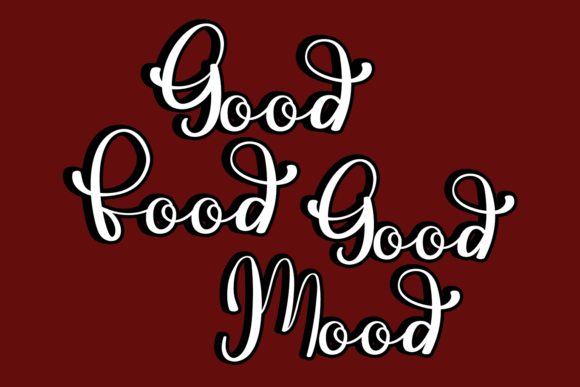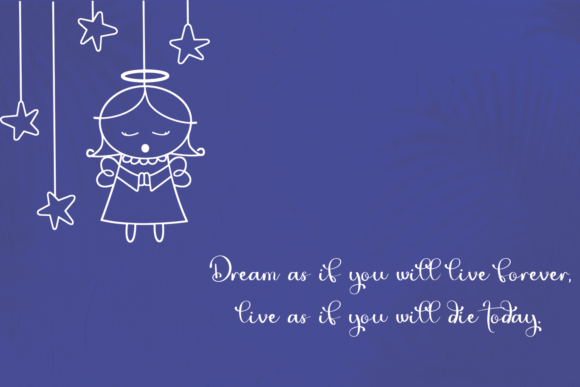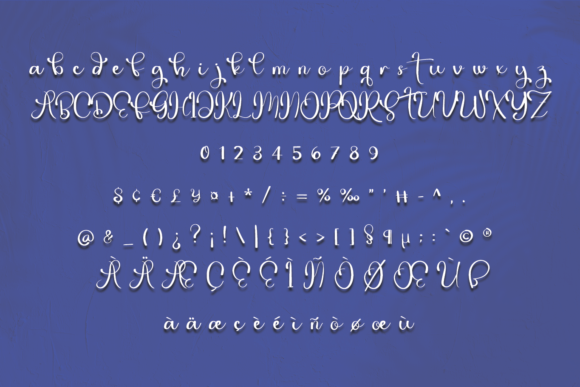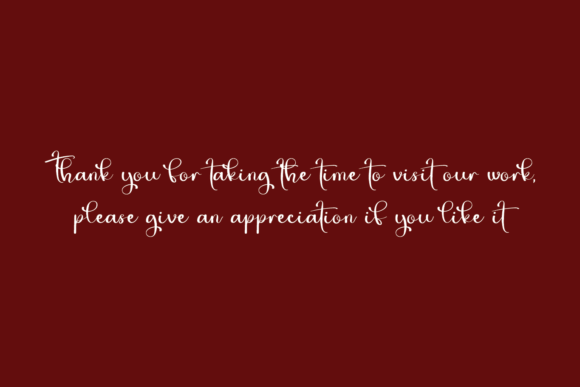
Discover the Enchanting Beauty of Beautiful Angel Font
Are you a designer, crafter, or DIY enthusiast looking for a unique and stunning handwritten font to elevate your creative projects? Look no further than the Beautiful Angel Font, a joyful and ravishing script that is sure to capture your heart. In this article, we’ll dive into the world of Beautiful Angel Font, exploring its features, uses, and benefits, as well as provide tips and inspiration for incorporating it into your designs.
What is Beautiful Angel Font?
Beautiful Angel Font is an incredibly unique and beautiful handwritten font, defined by a joyful style that exudes happiness and playfulness. This gorgeous script is perfect for creating a wide range of projects, from wedding invitations and stationery to social media posts and more. With its elegant and cursive flow, Beautiful Angel Font is sure to add a touch of sophistication and whimsy to any design.
Key Features of Beautiful Angel Font
- Unique and Handwritten Style: Beautiful Angel Font boasts a one-of-a-kind, handwritten style that is both personal and elegant.
- Joyful and Playful: This font is defined by its joyful and playful vibe, making it perfect for projects that require a lighthearted touch.
- Highly Versatile: Beautiful Angel Font can be used for a wide range of projects, from digital designs to print materials.
- Elegant and Cursive Flow: The font’s elegant and cursive flow makes it perfect for creating beautiful and sophisticated designs.
Uses for Beautiful Angel Font
Beautiful Angel Font is an incredibly versatile script that can be used for a wide range of projects, including:
- Wedding Invitations: Create stunning wedding invitations, save-the-dates, and thank-you cards with Beautiful Angel Font.
- Stationery and Paper Crafts: Use Beautiful Angel Font to create beautiful stationery, journals, and paper crafts.
- Social Media Posts: Add a touch of elegance and whimsy to your social media posts with Beautiful Angel Font.
- Branding and Packaging: Use Beautiful Angel Font to create unique and eye-catching branding and packaging designs.
Tips for Using Beautiful Angel Font
Here are some tips for incorporating Beautiful Angel Font into your designs:
- Pair with Other Fonts: Pair Beautiful Angel Font with other fonts to create a unique and visually appealing design.
- Use for Headlines and Titles: Use Beautiful Angel Font for headlines and titles to add a touch of elegance and sophistication.
- Keep it Simple: Don’t be afraid to keep your design simple and clean, allowing Beautiful Angel Font to take center stage.
| Font Name | Beautiful Angel Font |
| Author | el hotcig |
In conclusion, Beautiful Angel Font is a stunning and unique handwritten script that is sure to capture your heart. With its joyful and playful style, elegant and cursive flow, and high versatility, this font is perfect for designers, crafters, and DIY enthusiasts looking to elevate their creative projects. Whether you’re creating wedding invitations, stationery, social media posts, or more, Beautiful Angel Font is sure to add a touch of beauty and whimsy to your designs.